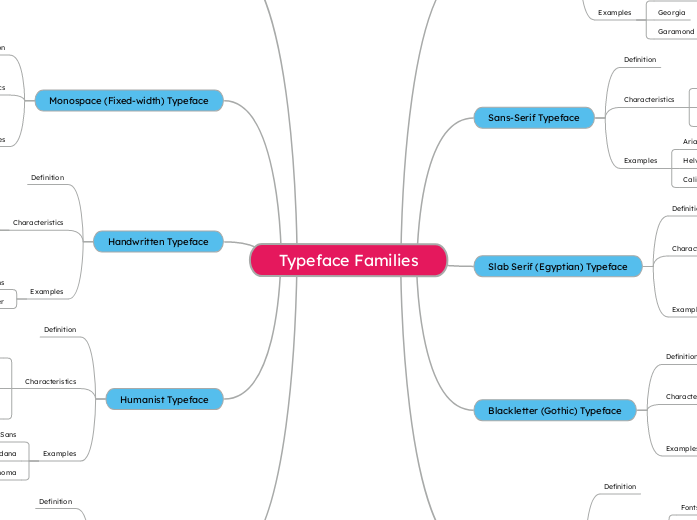
Main Typeface Families in English TypographySerif📜 Fonts with small lines or strokes attached to the ends of letters.🔸 Often used in books and newspapers.🔹 Classic and readable.Examples: Times
Typeface Families
Geometric Typeface
Gotham
Avenir
Futura
Often used in logos and tech design
Modern and structured look
Based on geometric shapes like circles and squares
Humanist Typeface
Tahoma
Verdana
Gill Sans
Found in both serif and sans-serif versions
Easy to read
organic shapes
with warm
Inspired by handwriting and classic proportions
Handwritten Typeface
Indie Flower
Comic Sans
Used in comics
or casual branding
notes
Casual and personal feel
Imitates natural handwriting
Monospace (Fixed-width) Typeface
Consolas
Courier New
Clear and aligned text
Great for coding and tabular data
Each letter takes up the same amount of space
Display (Decorative / Novelty) Typeface
Impact
Lobster
Jokerman
Used to create a unique vibe or visual impact
Not suitable for body text
Highly stylized fonts for titles and headings
Script Typeface
Edwardian Script
Pacifico
Brush Script
Used in invitations
or artistic projects
logos
Elegant or casual
depending on style
Fonts that mimic handwriting or calligraphy
Blackletter (Gothic) Typeface
Fraktur
Old English Text
Used in certificates or logos
Traditional or historic look
Old
medieval-style fonts with dramatic strokes
Slab Serif (Egyptian) Typeface
Museo Slab
Courier
Rockwell
Often used in posters or headlines
Bold and attention-grabbing
Thick
block-like serifs
Sans-Serif Typeface
Calibri
Helvetica
Arial
Common in digital and web design
Clean and modern look
Fonts without serifs
Serif Typeface
Examples
Garamond
Georgia
Times New Roman
Characteristics
Classic and readable
Commonly used in books and newspapers
Small lines or strokes attached to the ends of letters